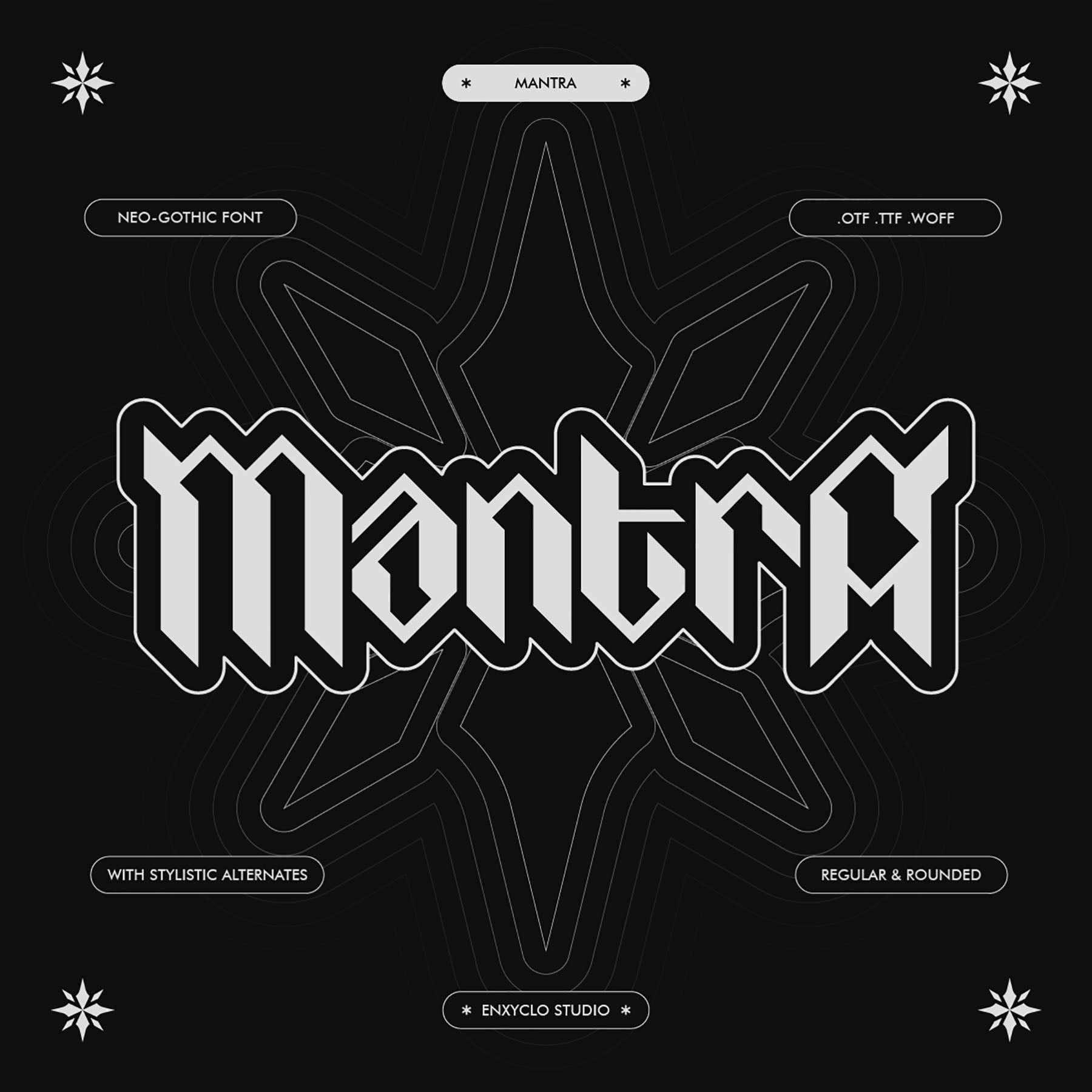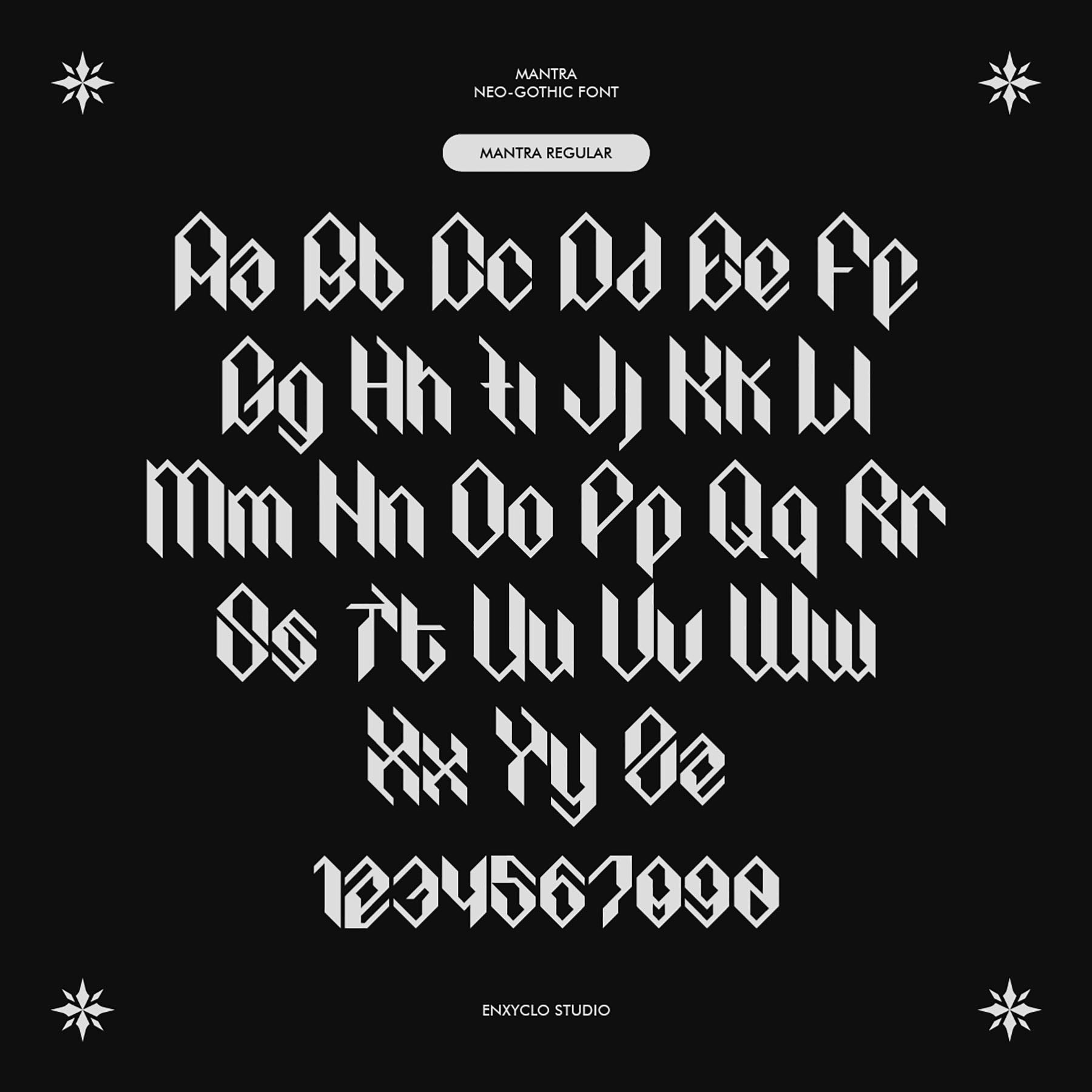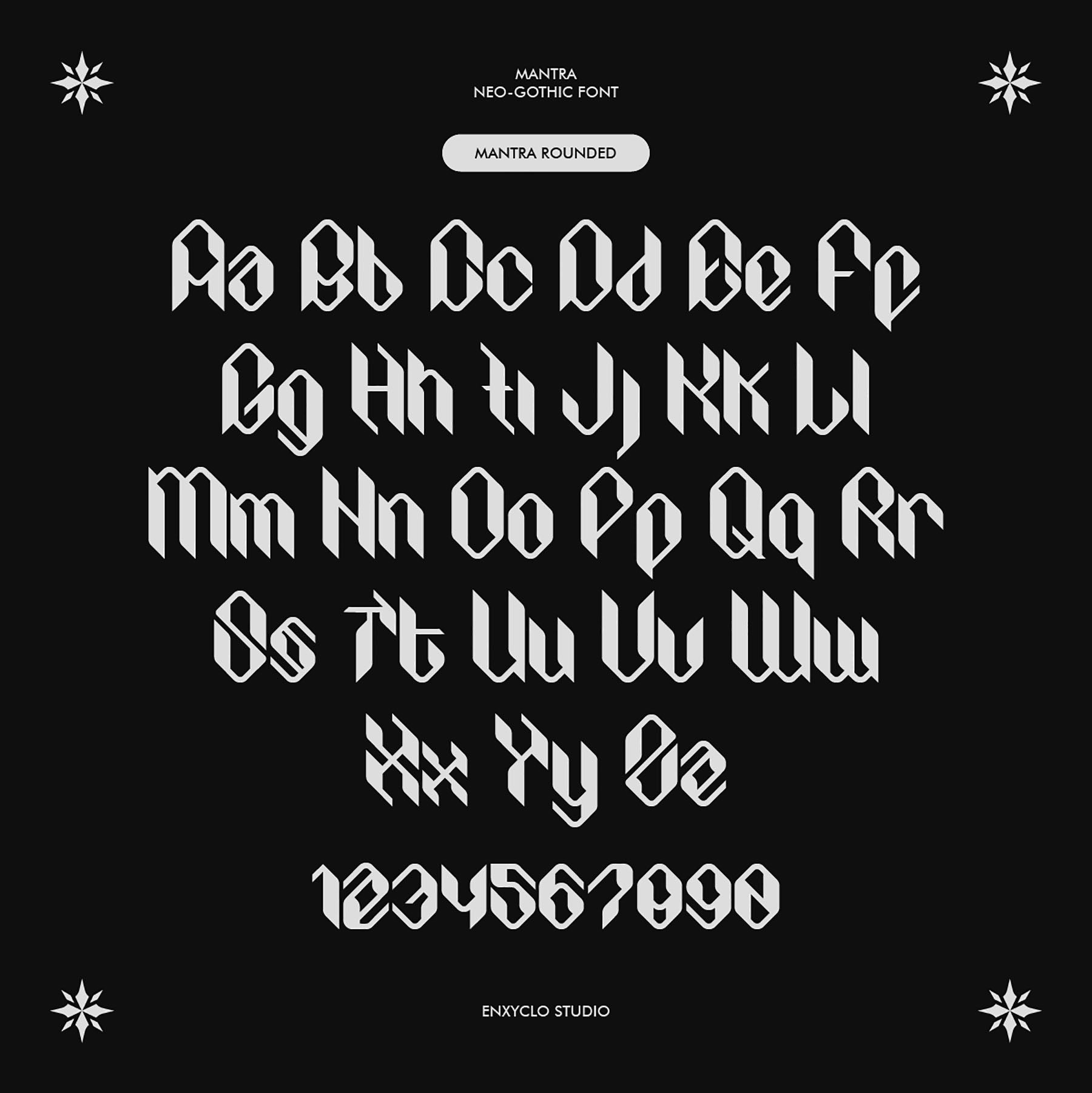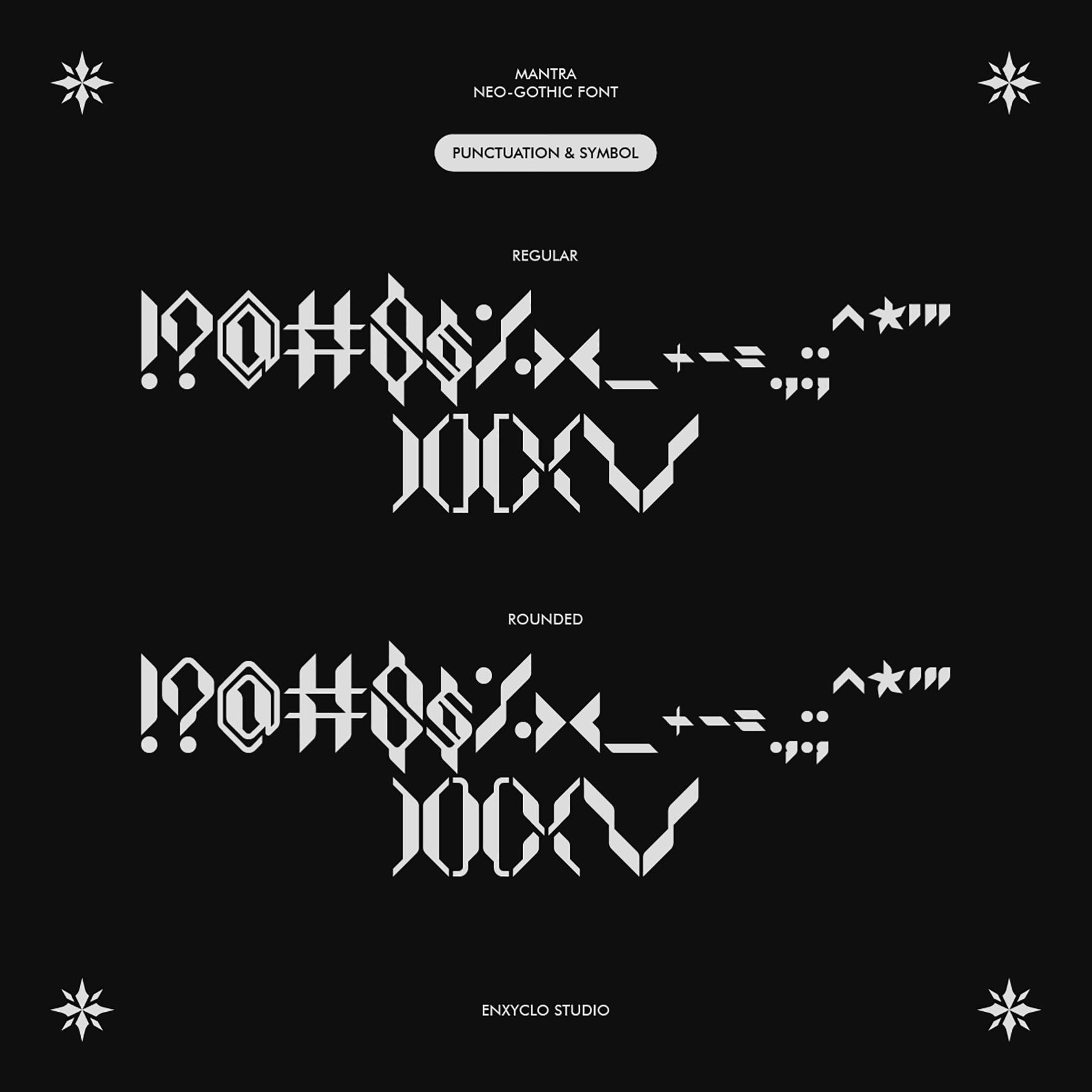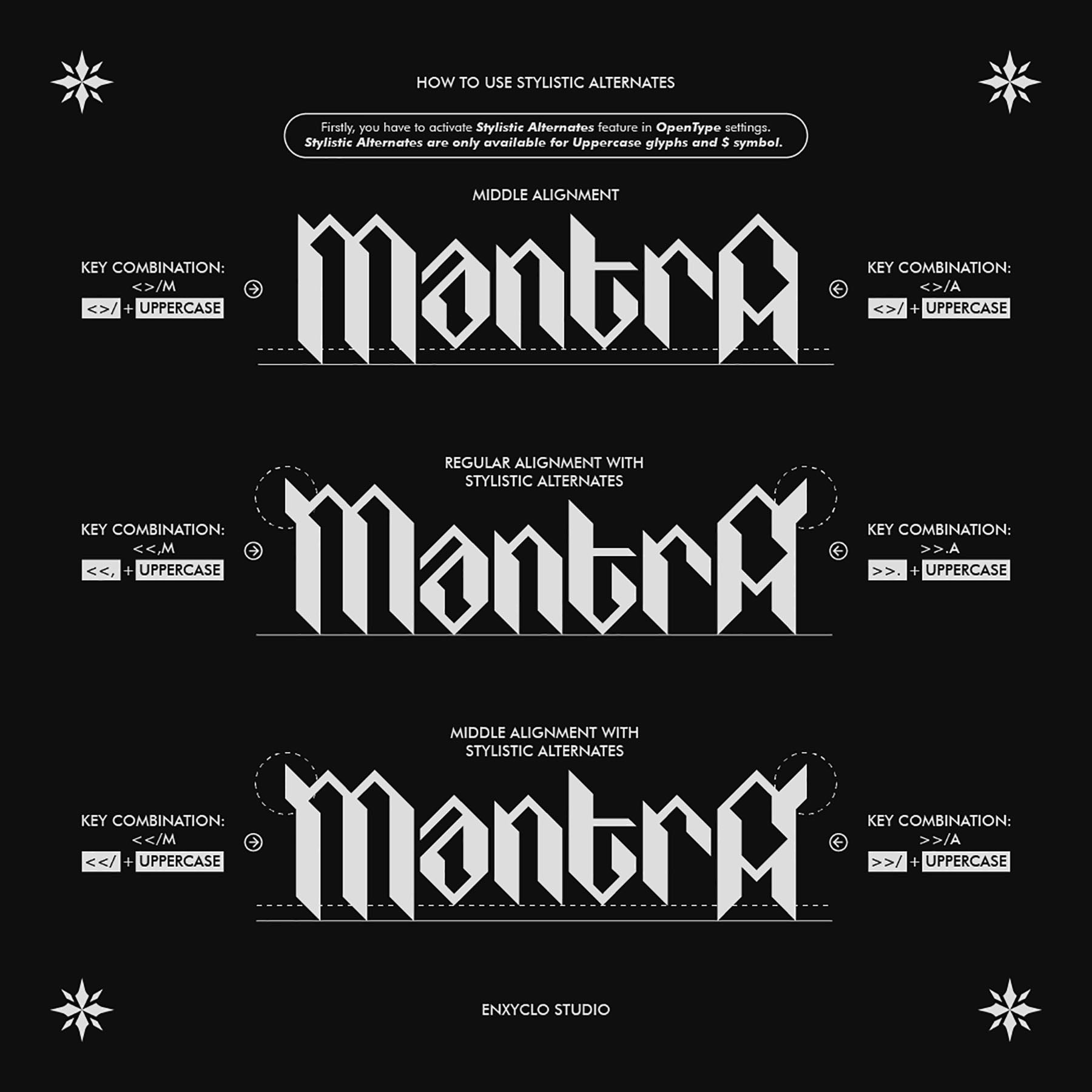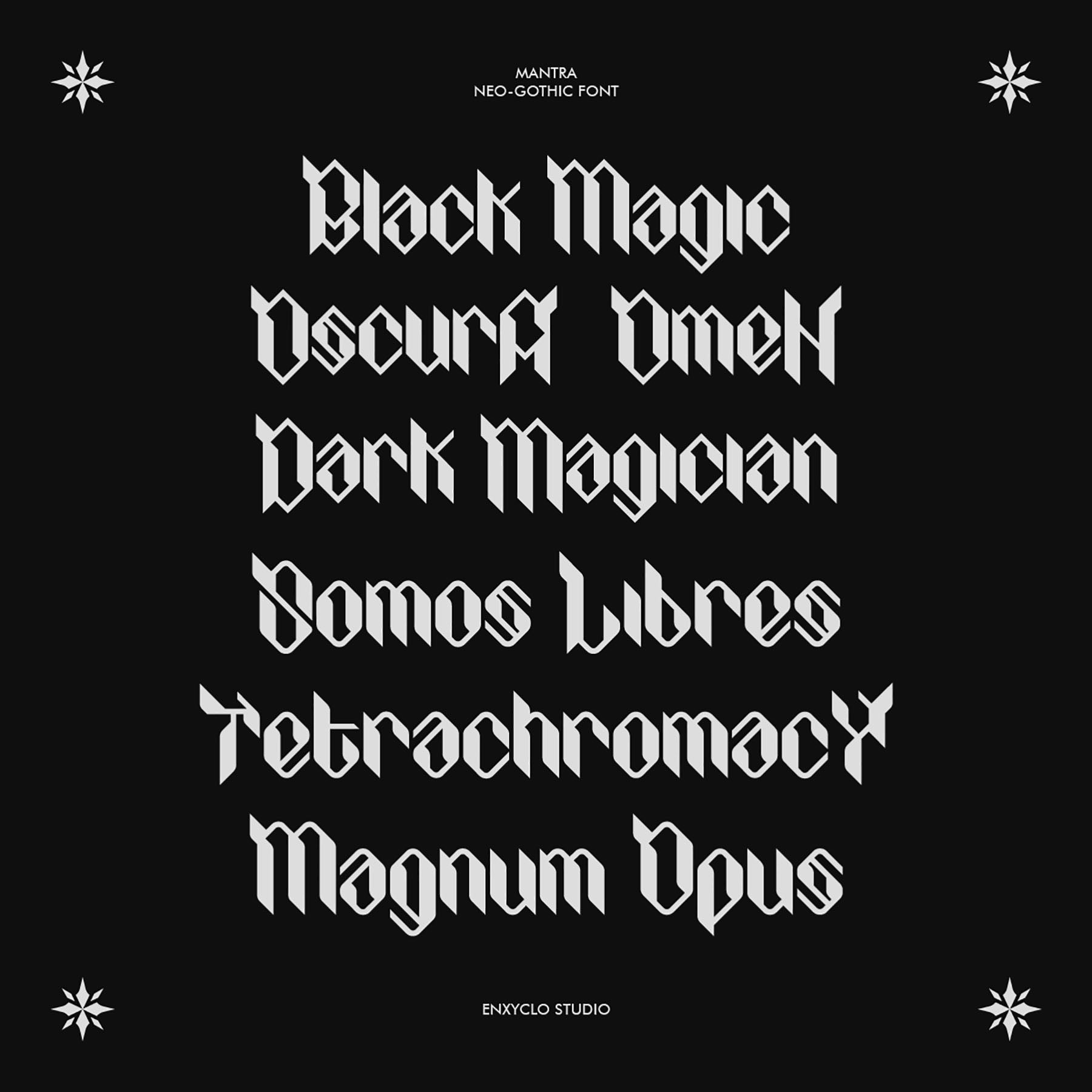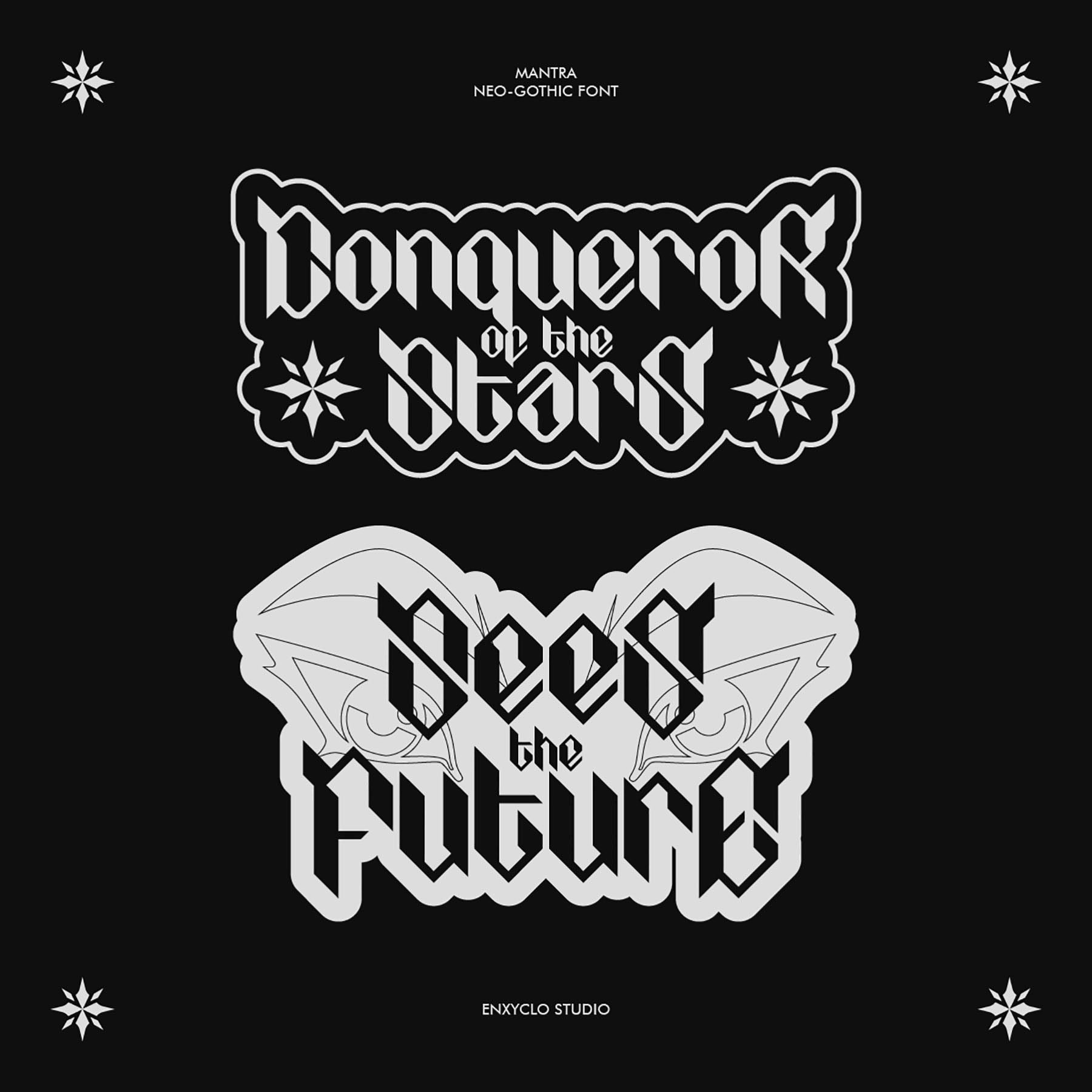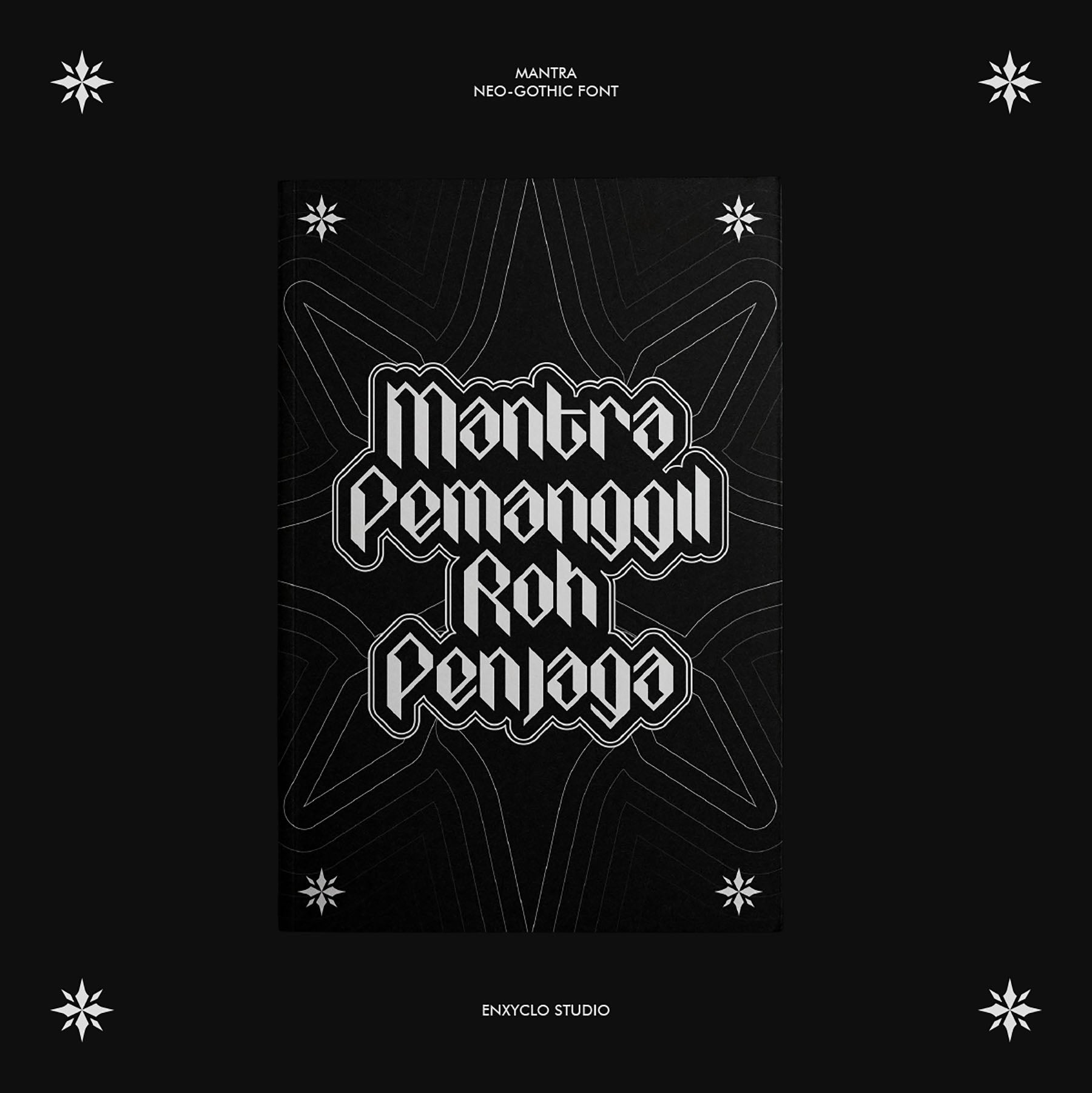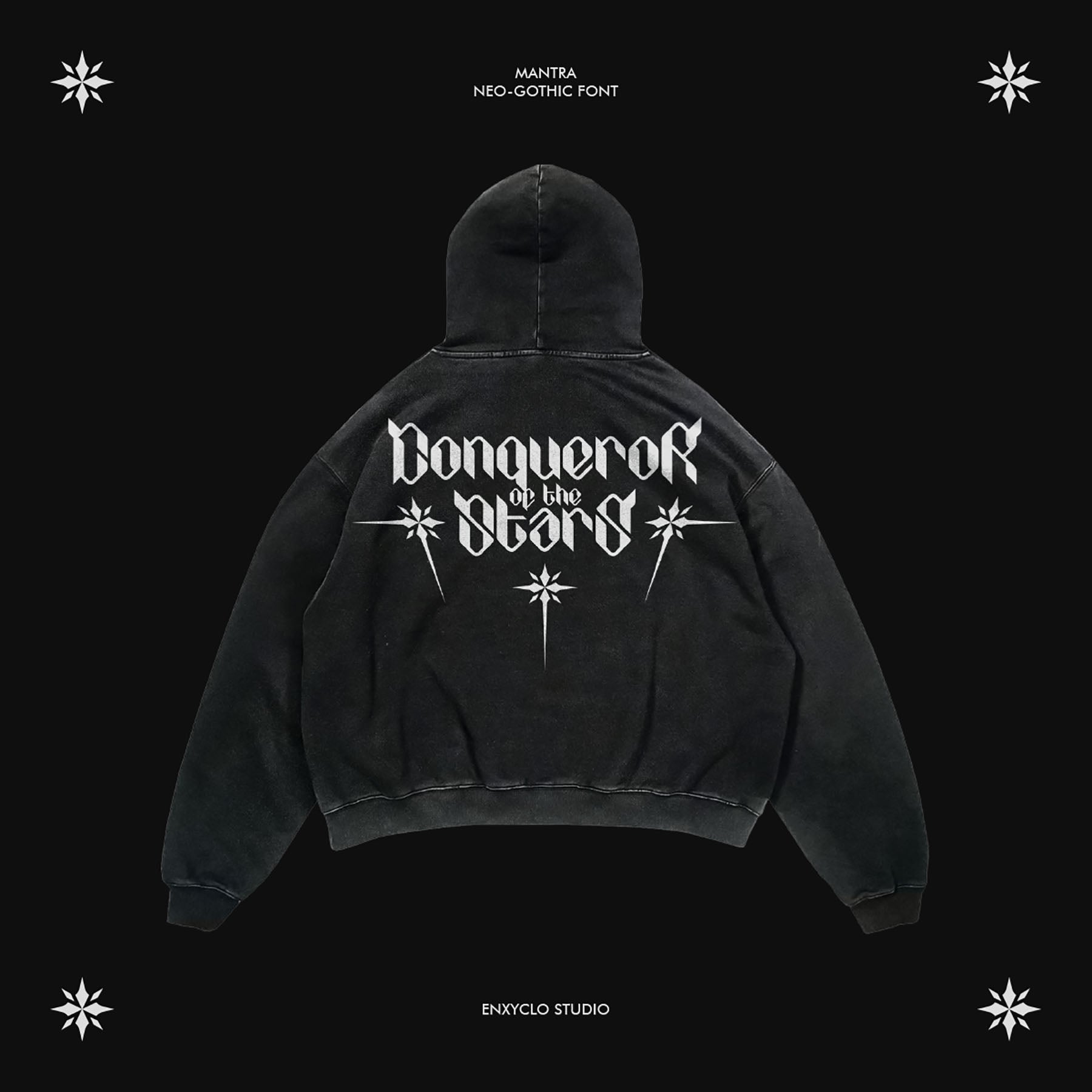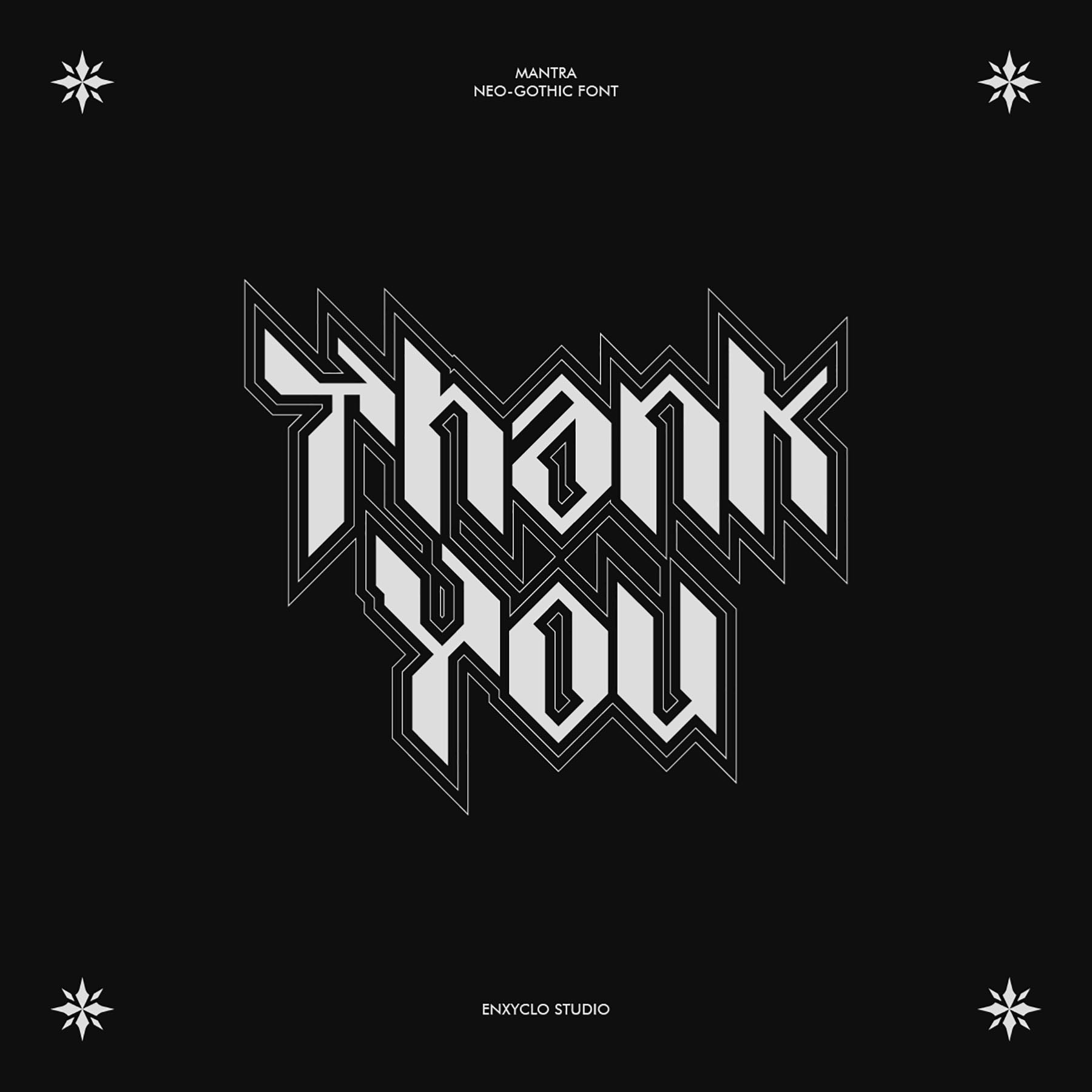
Mantra Typeface
It is perfect for creative branding, event, headline, billboard, magazines, website, titles, poster, branding, t-shirt design, and logos.
No matter the topic, this font will be an incredible asset to your font library, as it has the potential to elevate any creation. With this beautiful font, absolutely you can make your project stand out from the rest. See the previews above to get some inspiration on how to use them.